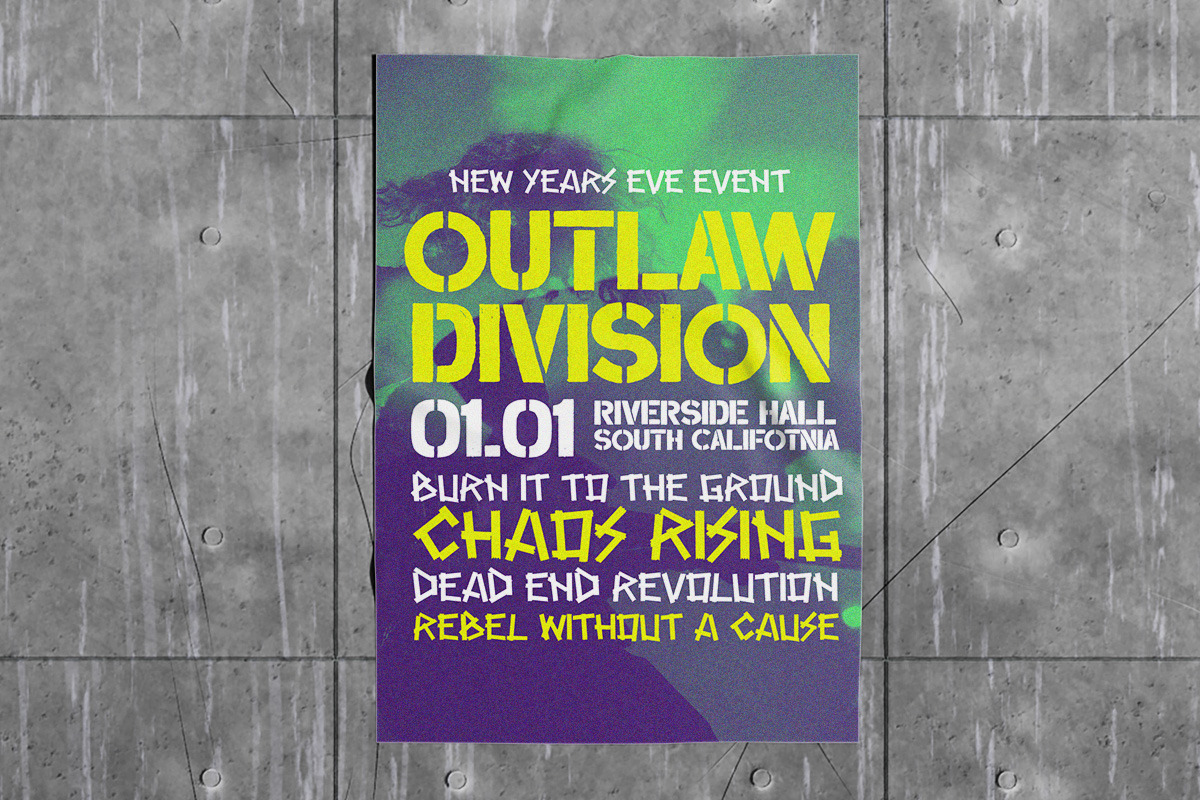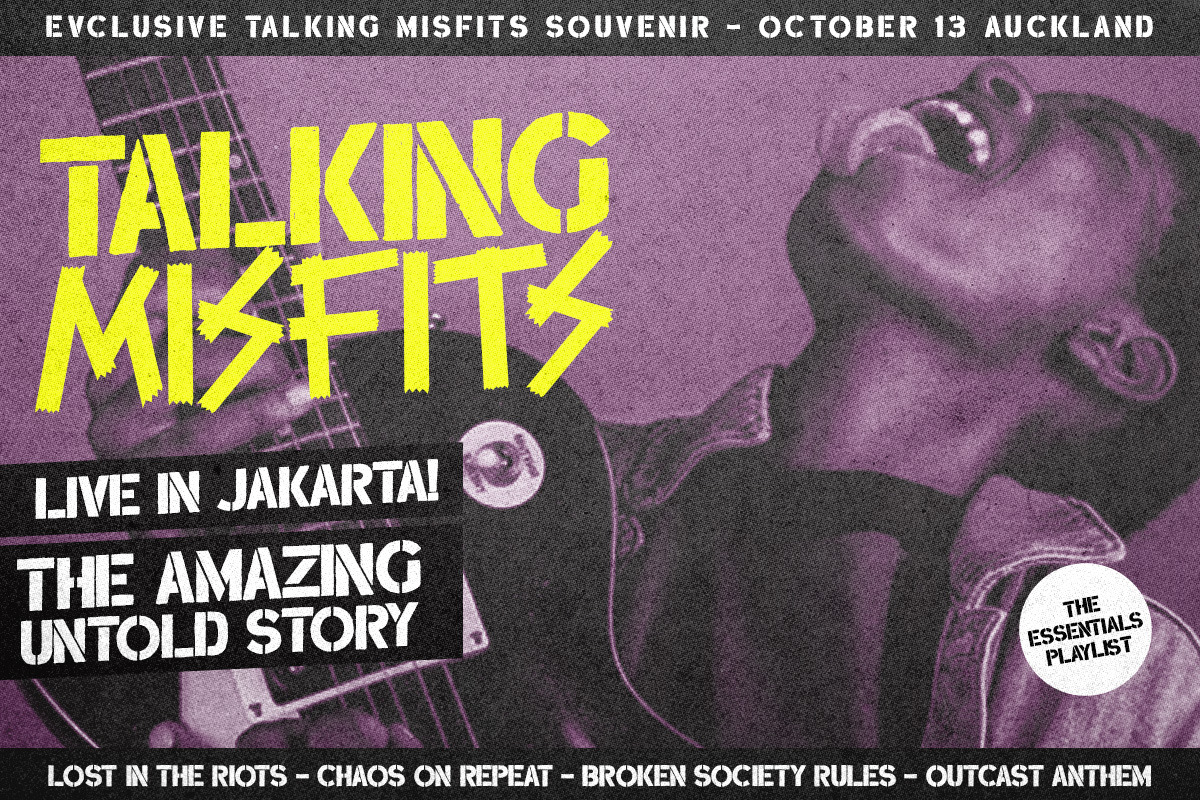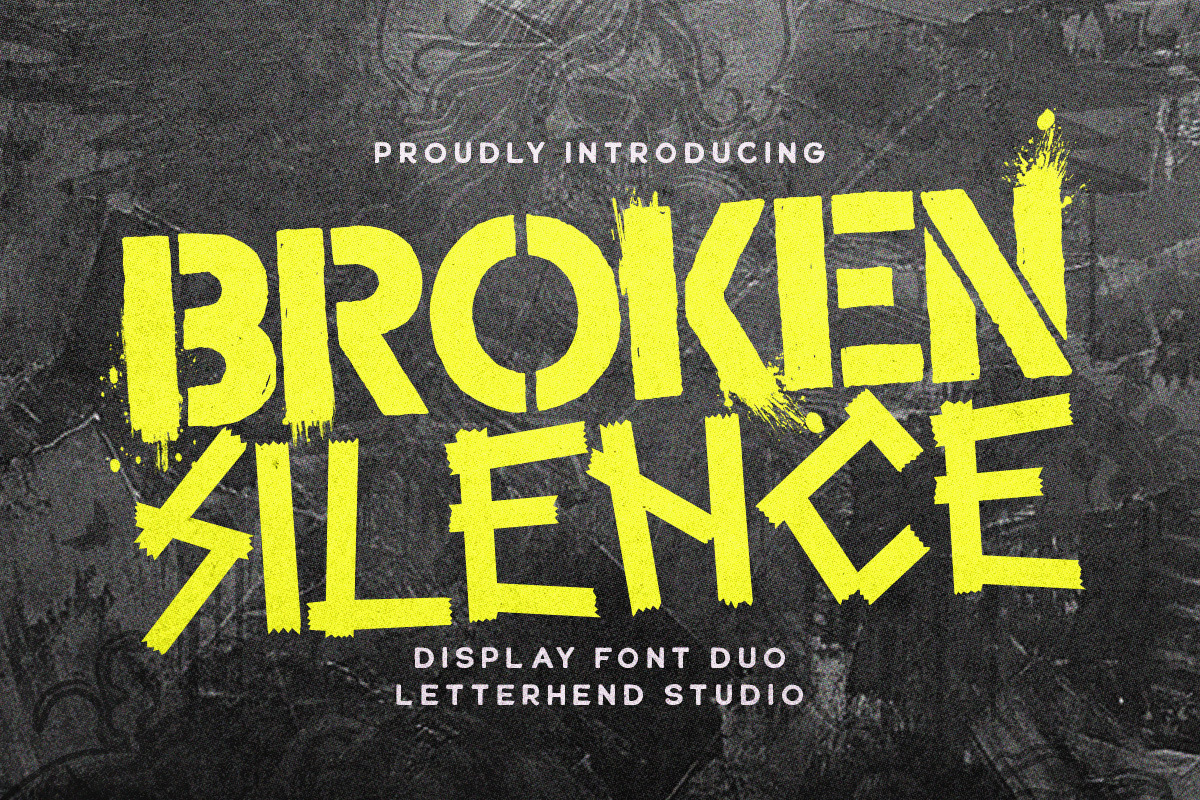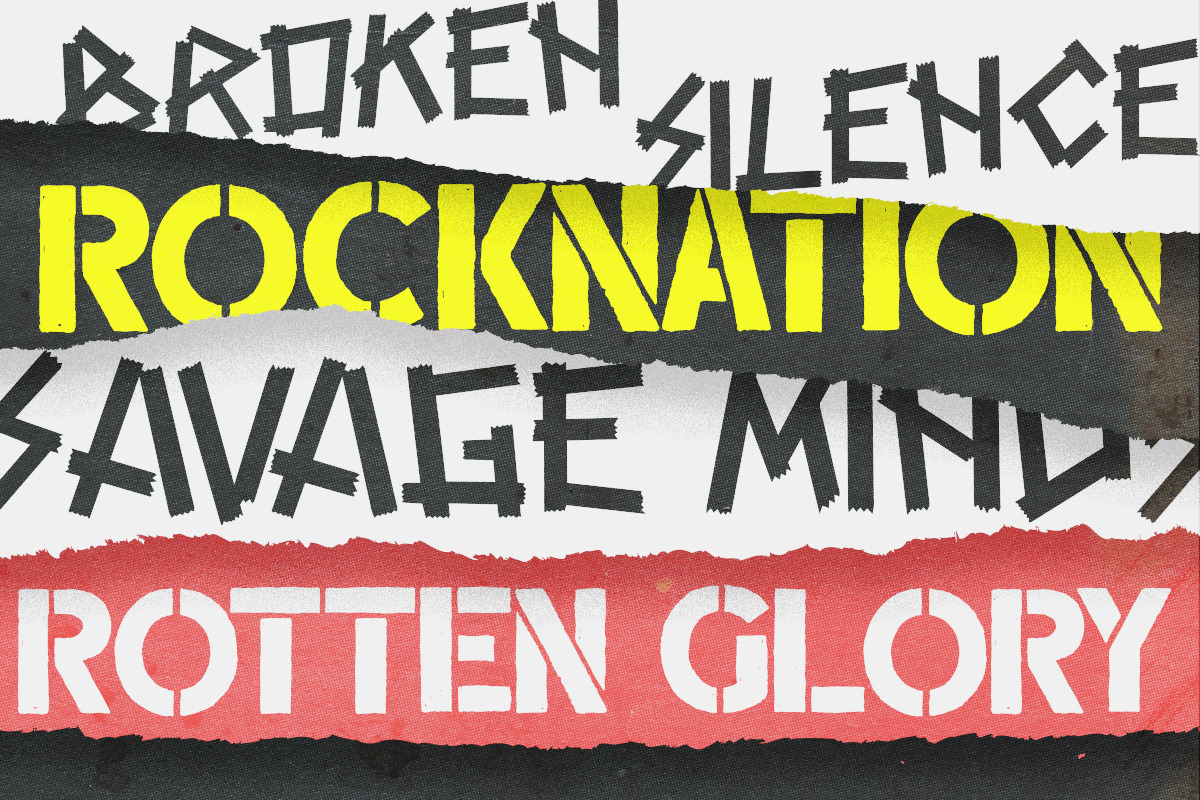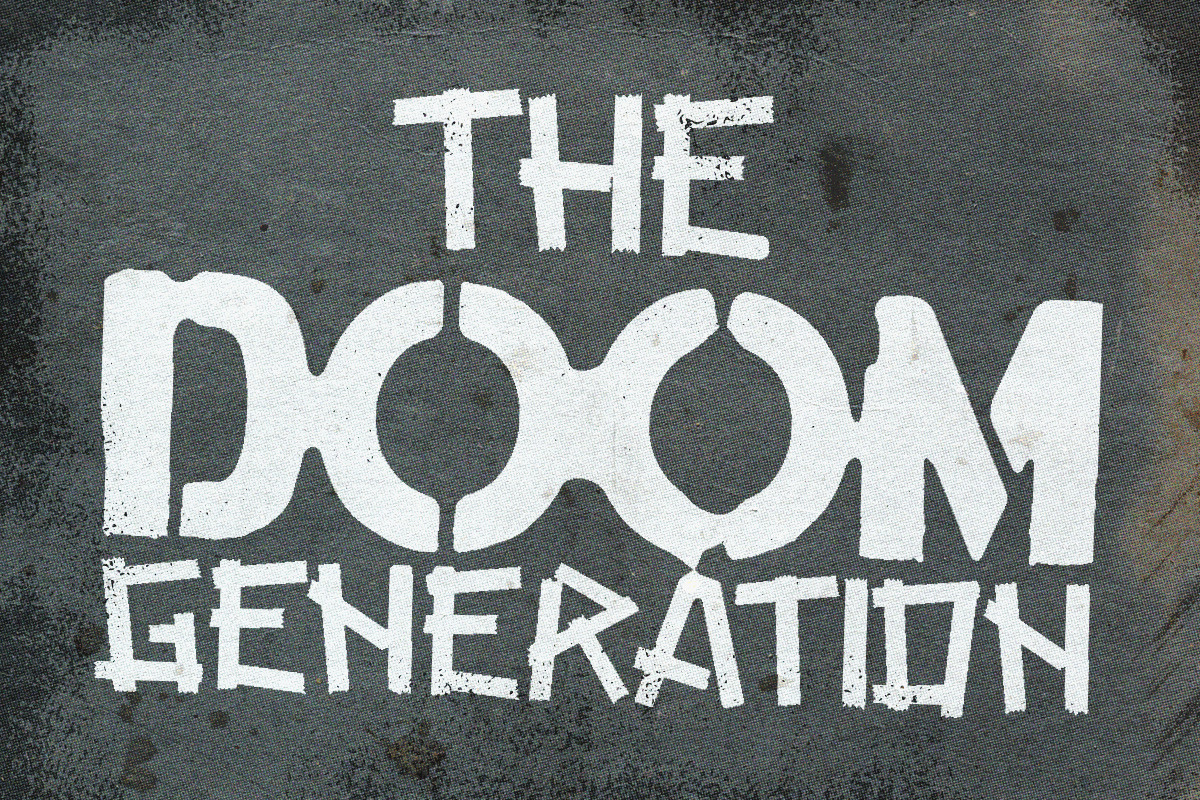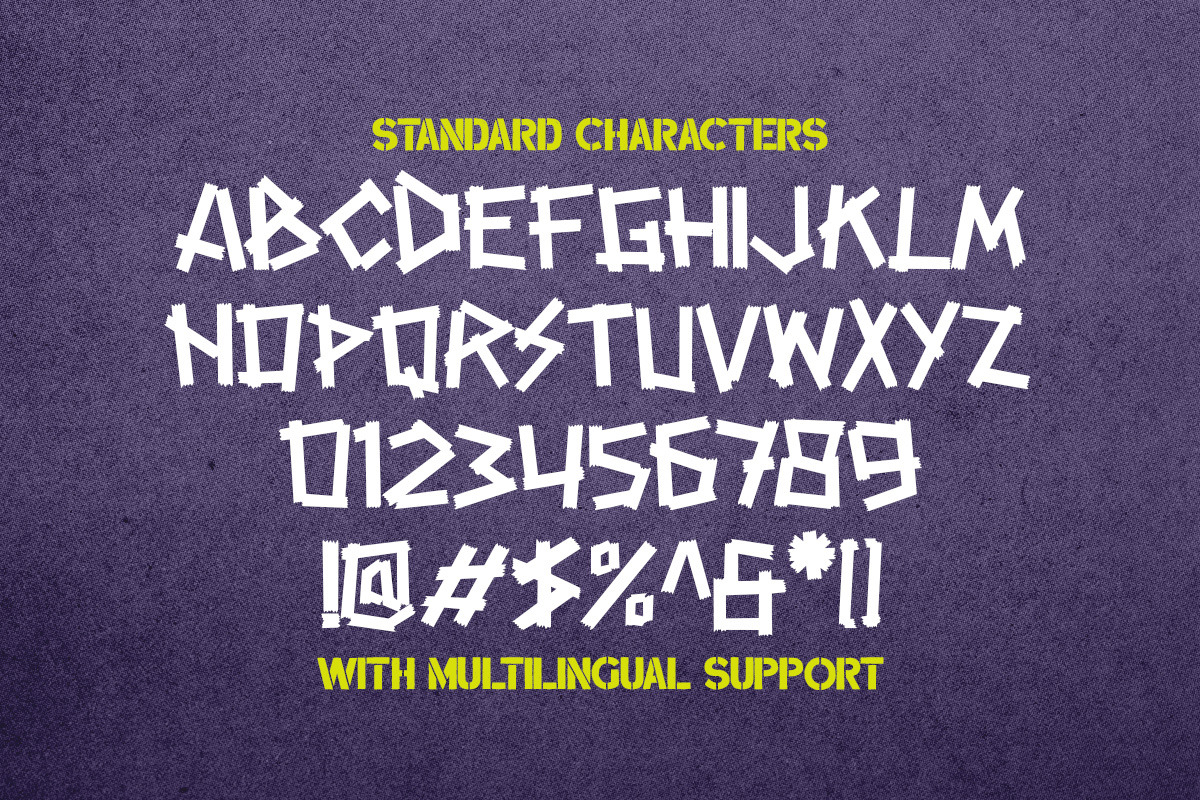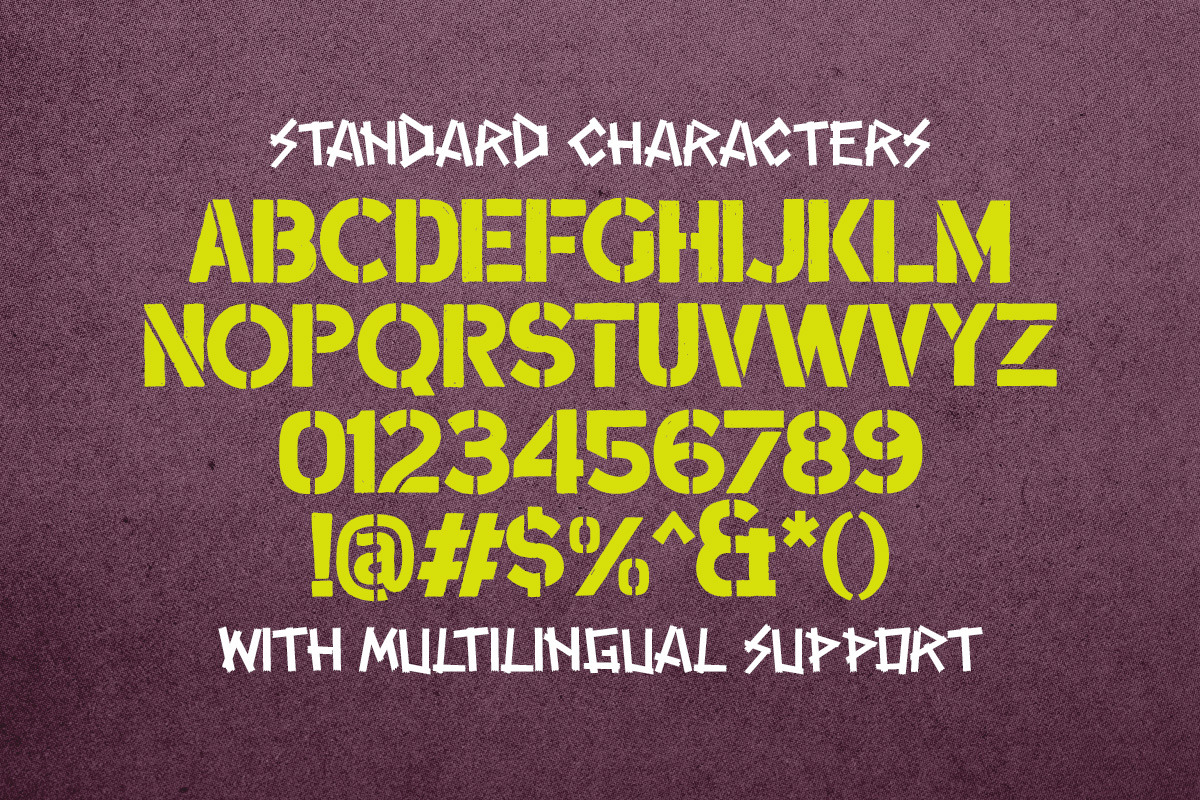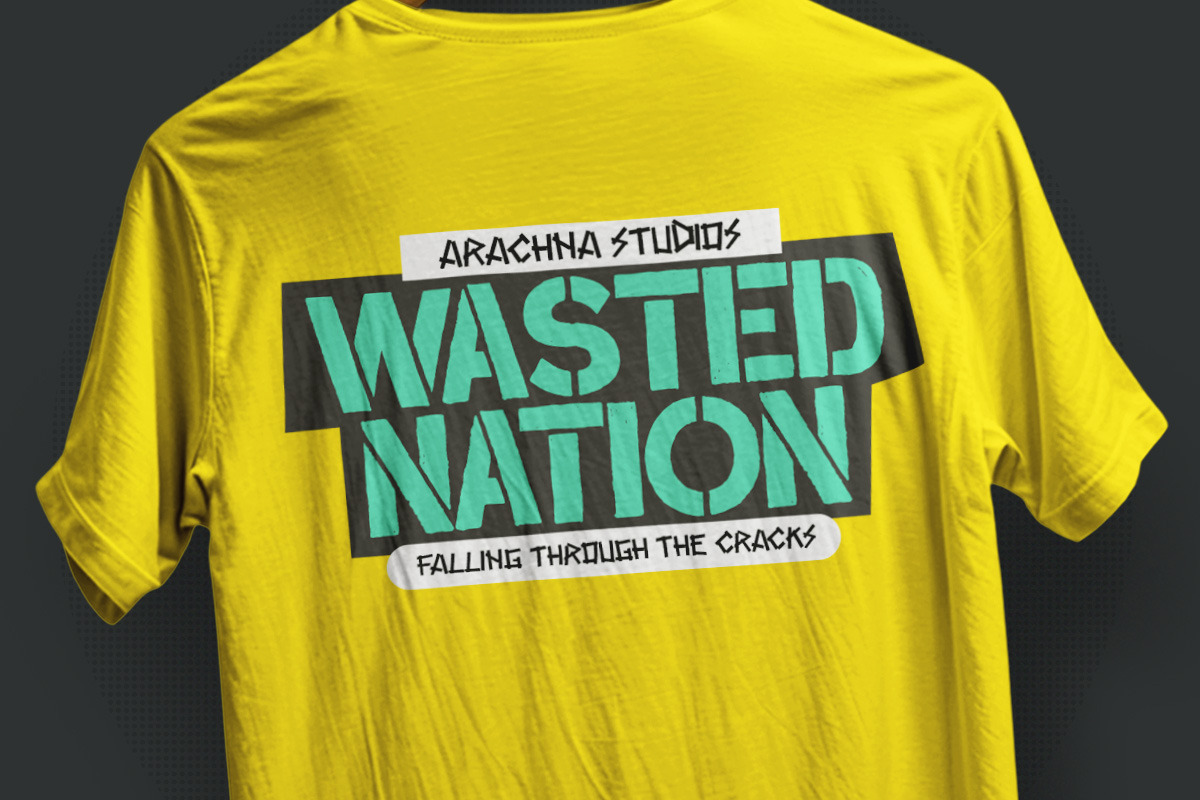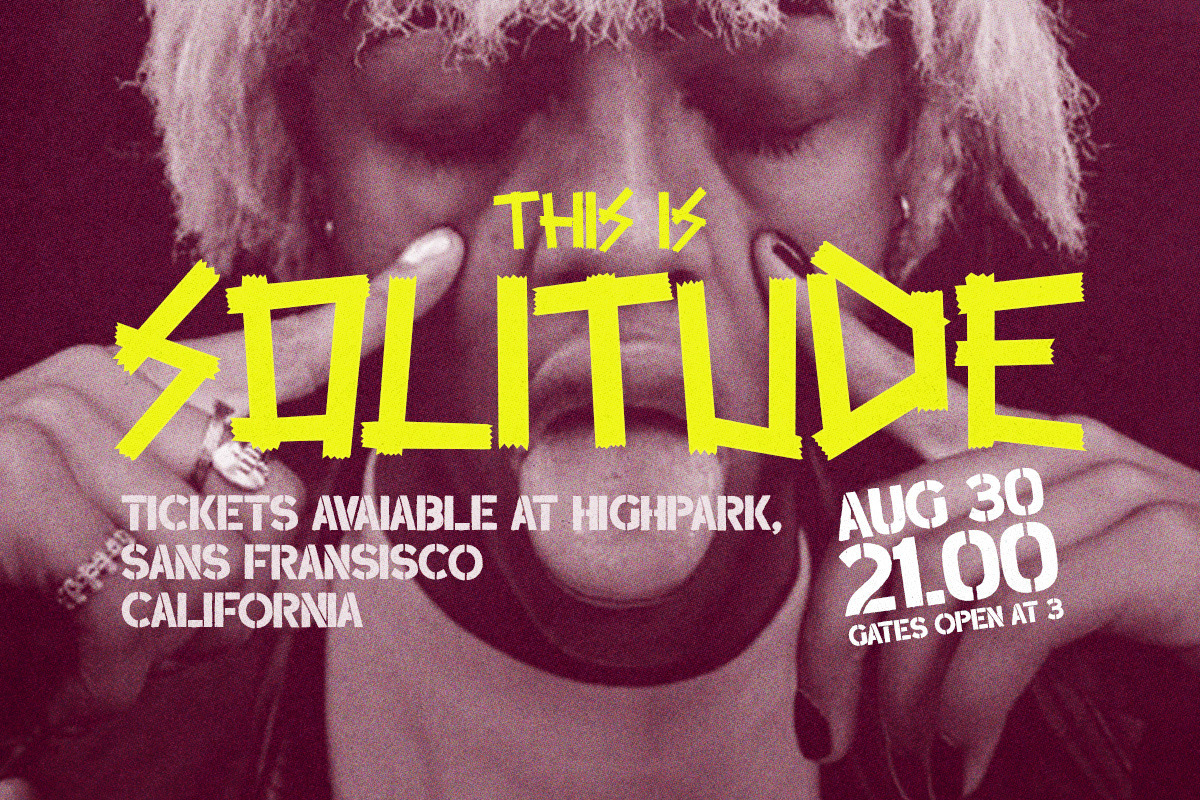
Broken Silence Display Font Duo
Meet Broken Silence—a bold, street-style display font that mixes raw stencil cuts with freestyle urban vibes. This font duo is perfect for street-themed designs, street wear branding, or even the title of a game tittle. It’s made to stand out on logos, headlines, signage, and more, while also looking sharp on apparel, book covers, labels, packaging, and all kinds of advertising.